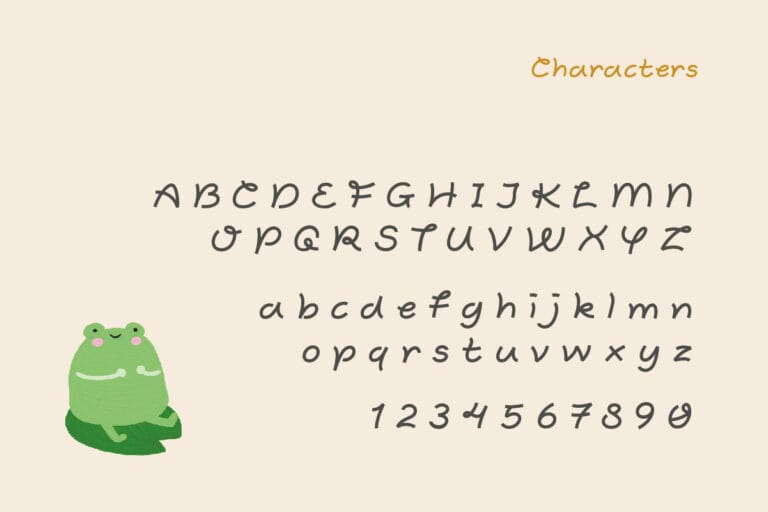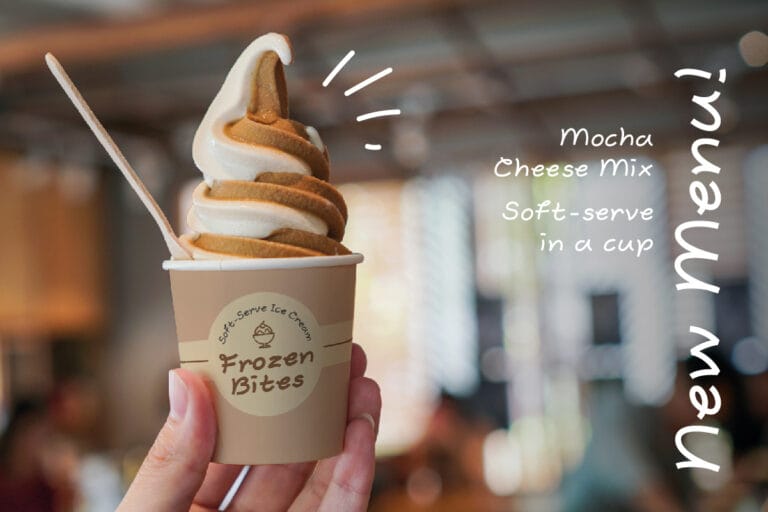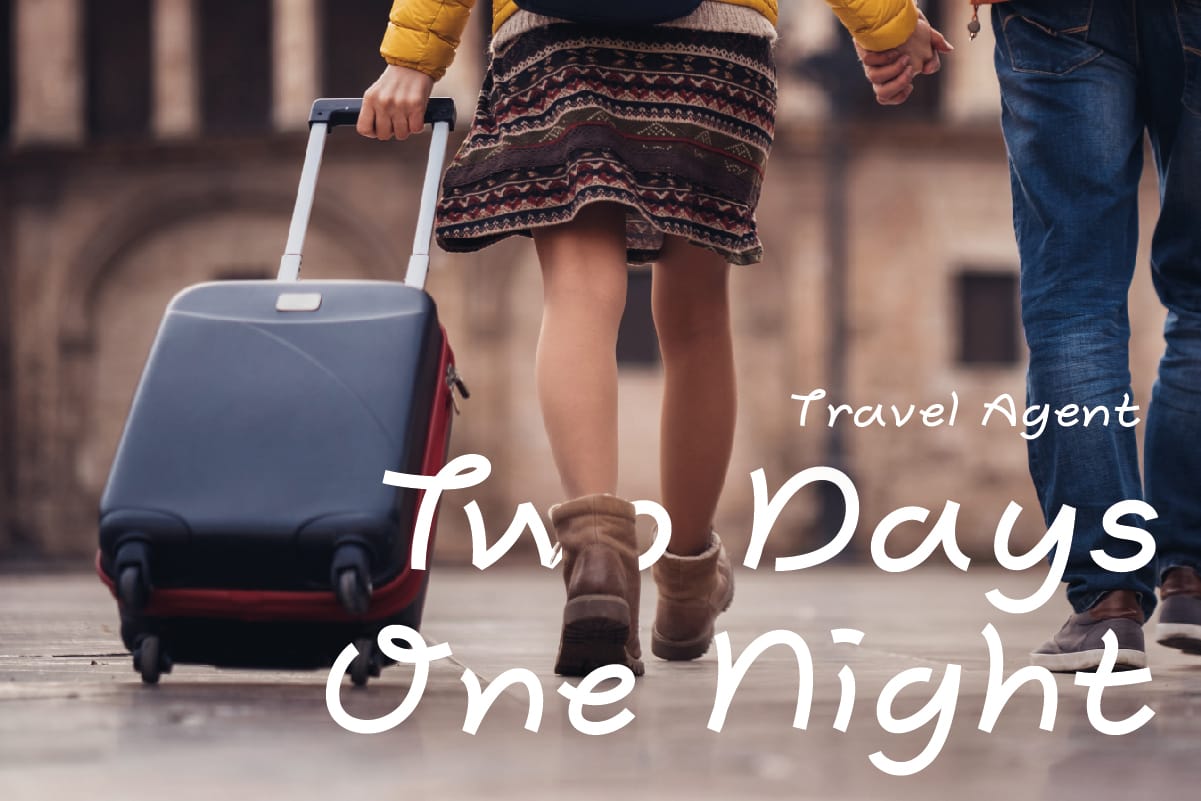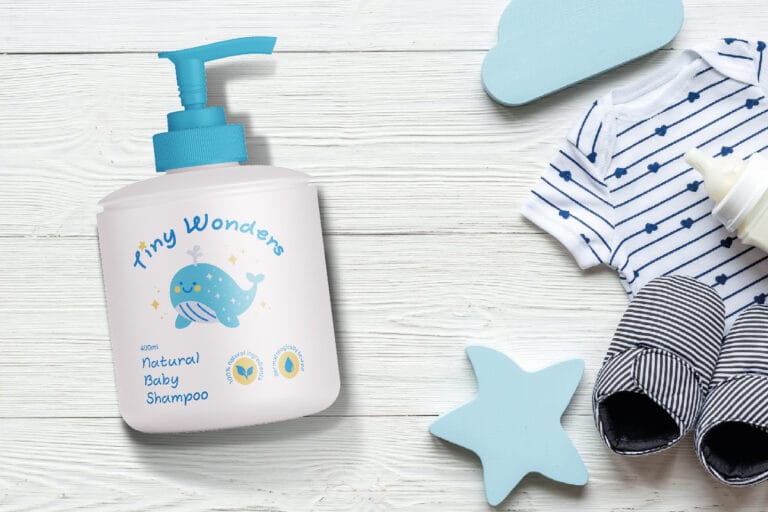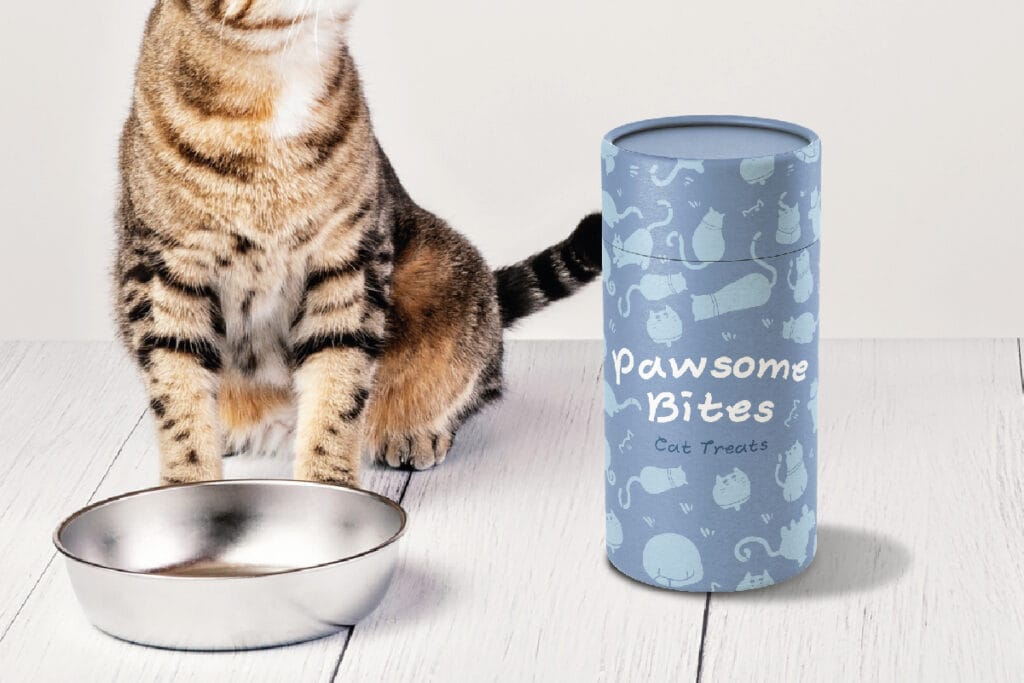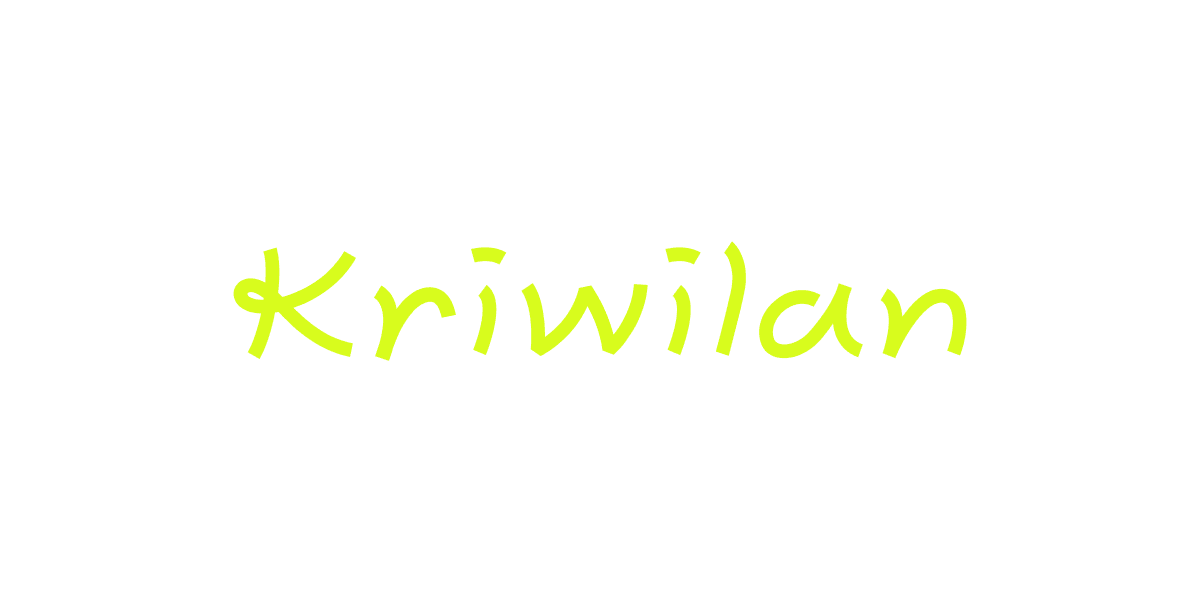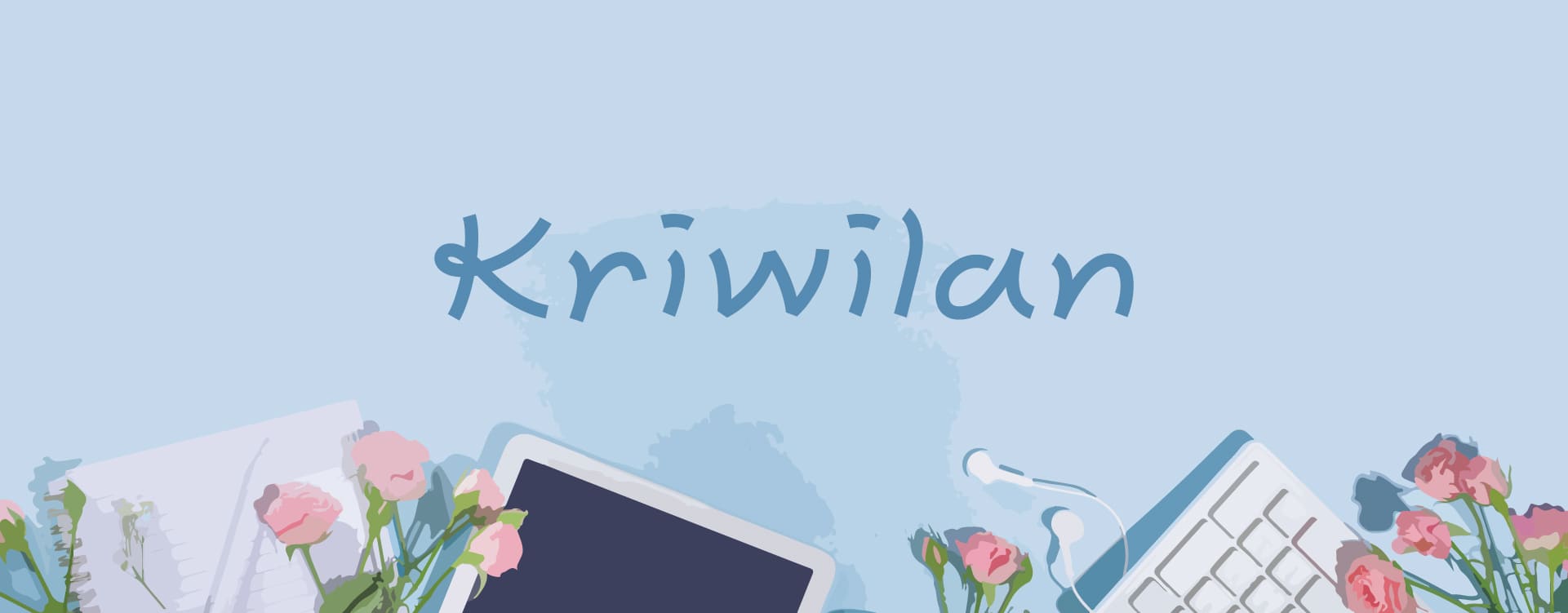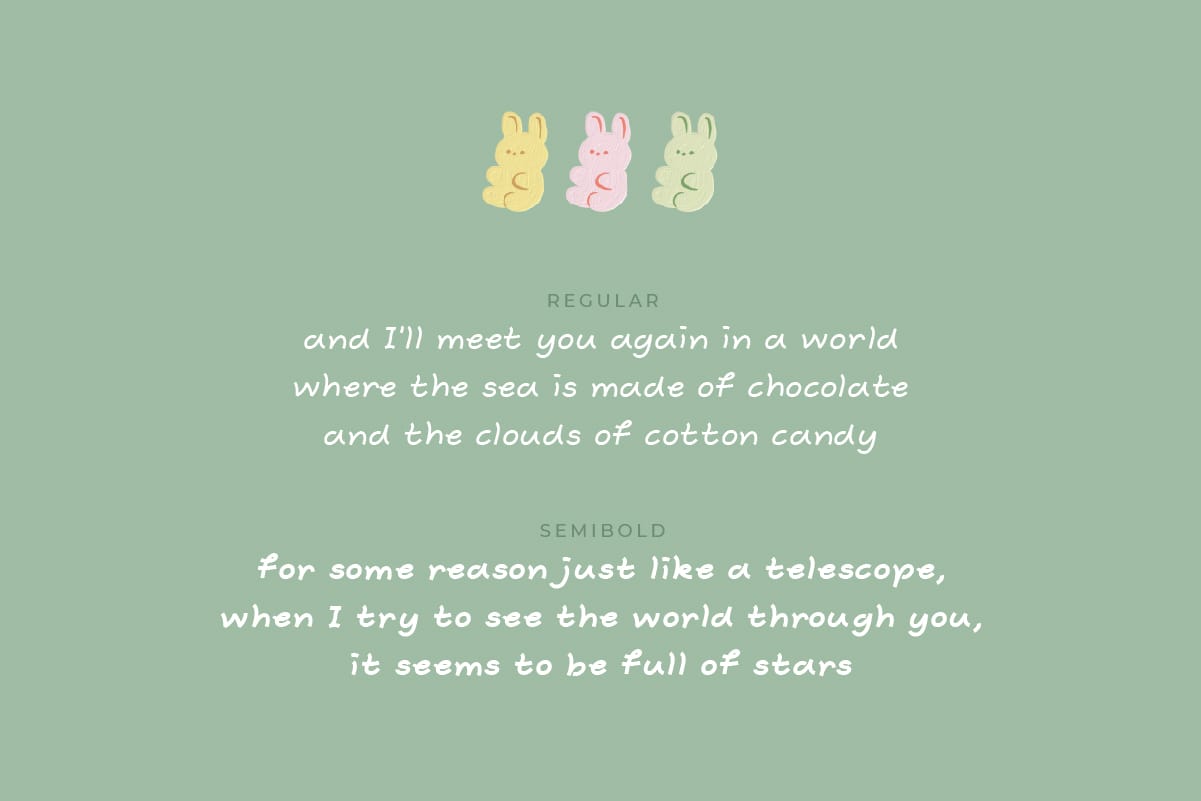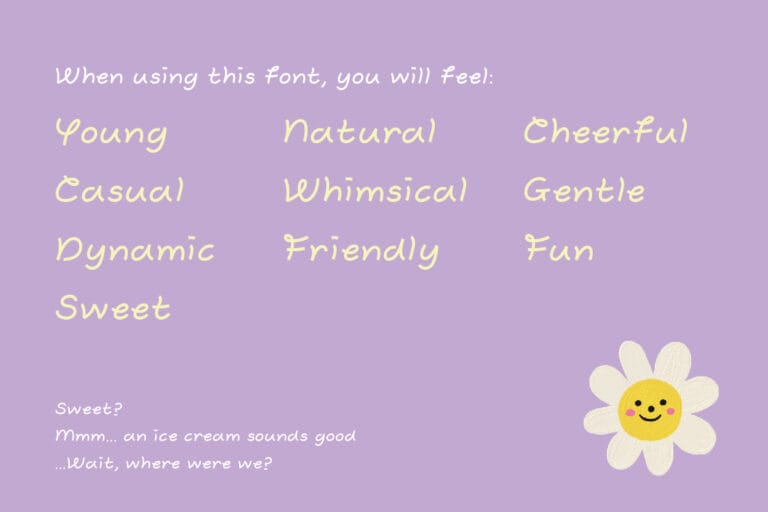
Kriwilan is a semi-handwritten font that exudes a free, dynamic, and fun energy while still maintaining tidiness and readability. The name derives from the word “kriwil” which can be translated to “curly”, referring to the loopy pattern that’s often found throughout the characters, especially in uppercase letters.
Kriwilan will fit best paired with branding, social media posts, packaging, and other design projects that want to radiate the same young, casual, and gentle vibe. This font consists of two families: Regular and Semibold, making it ideal for both captivating titles and clear, readable body text.